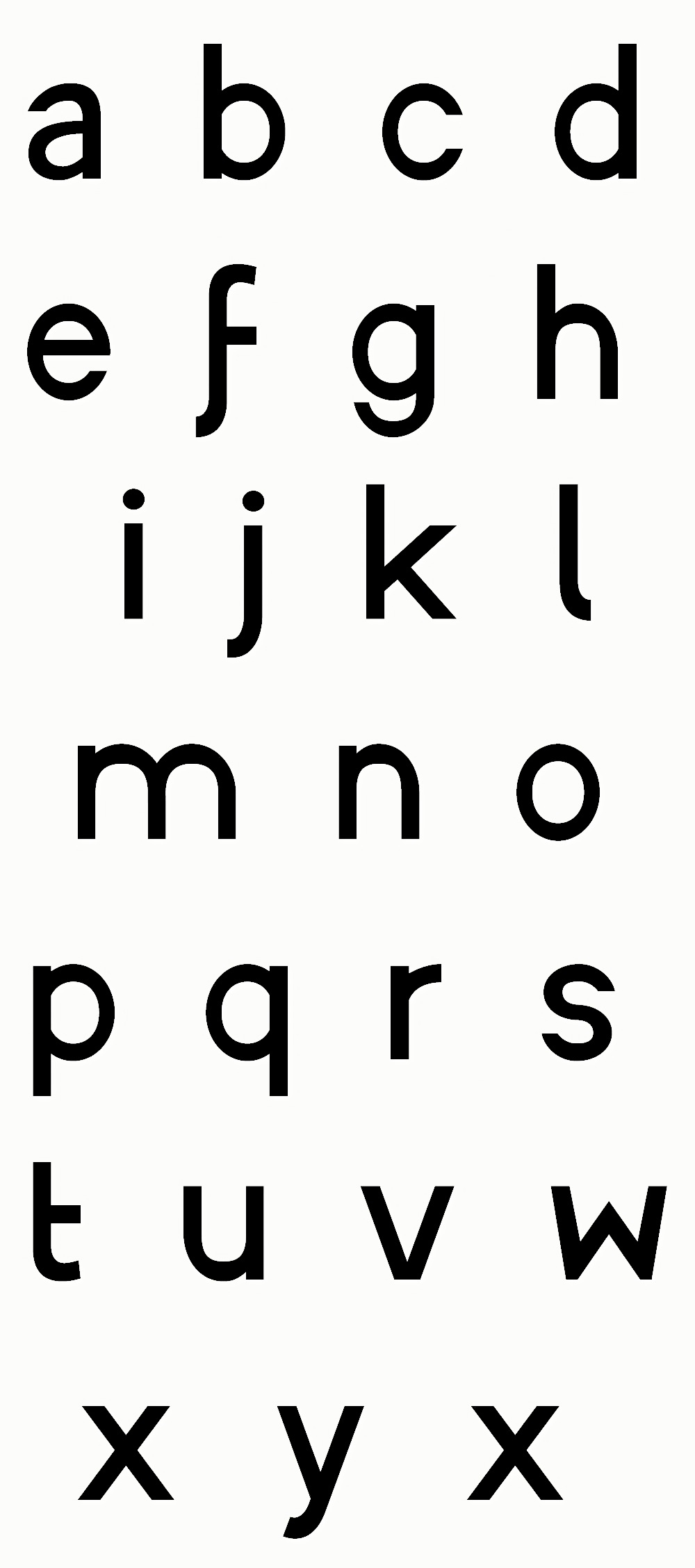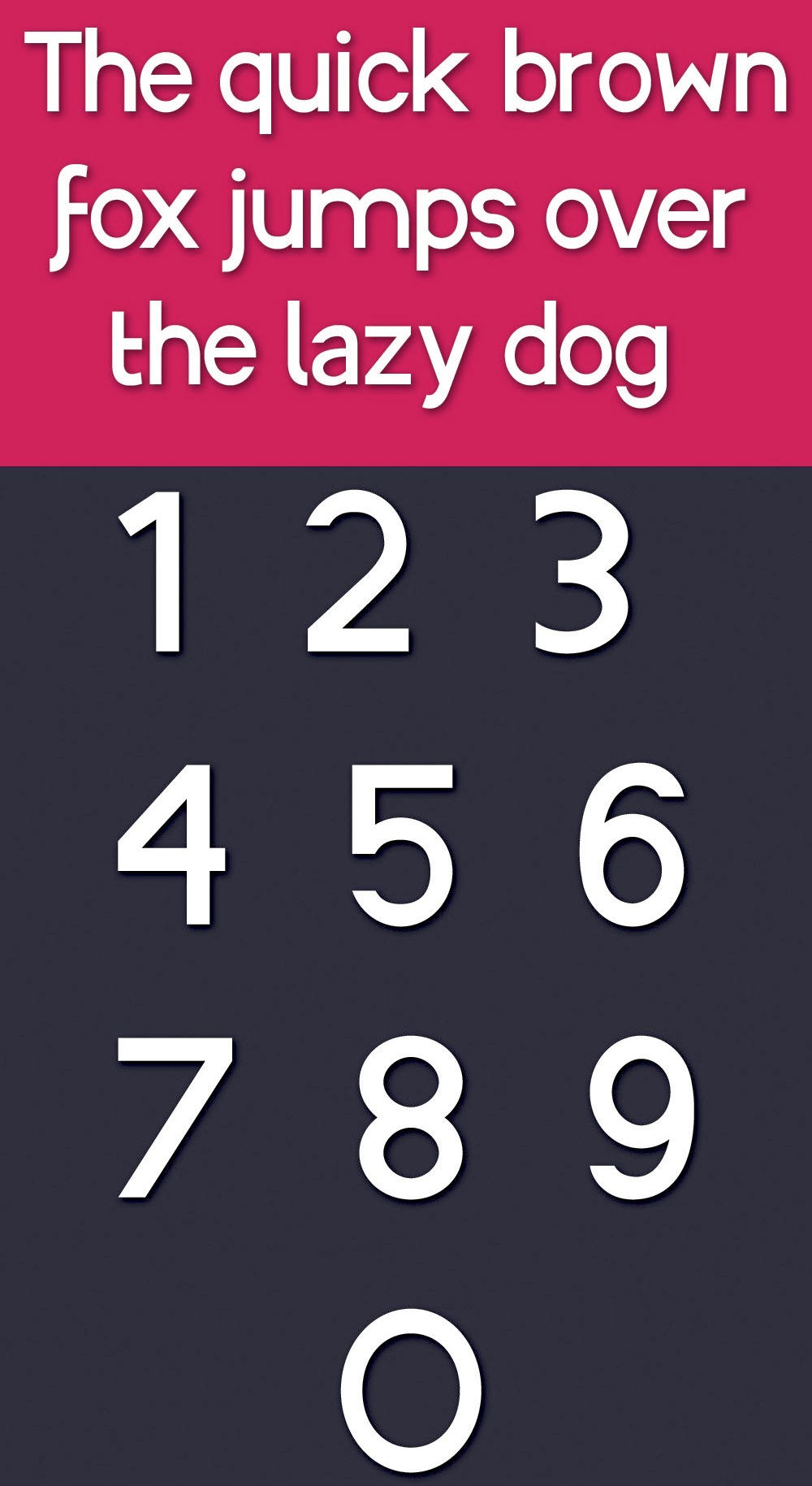
Rohan Kapoor
New Delhi, India-based designer of the all caps inline tweetware display typeface Axel (2014) and the tweetware sans typeface Rohio (2014). SocioHexs is a set of 30 hexagonal social media icons.